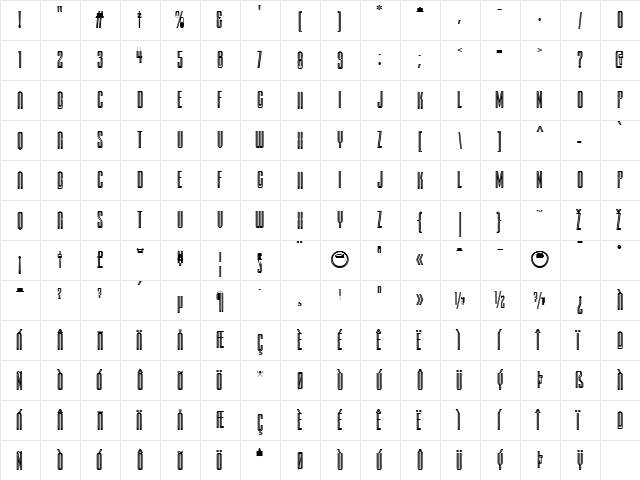
DELIRIUM NEON NCV Regular
Design Context for DELIRIUM NEON NCV Typeface
DELIRIUM NEON NCV has a distinctly futuristic character, with geometric precision and clean angles that feel at home in technology, gaming, and sci-fi contexts.